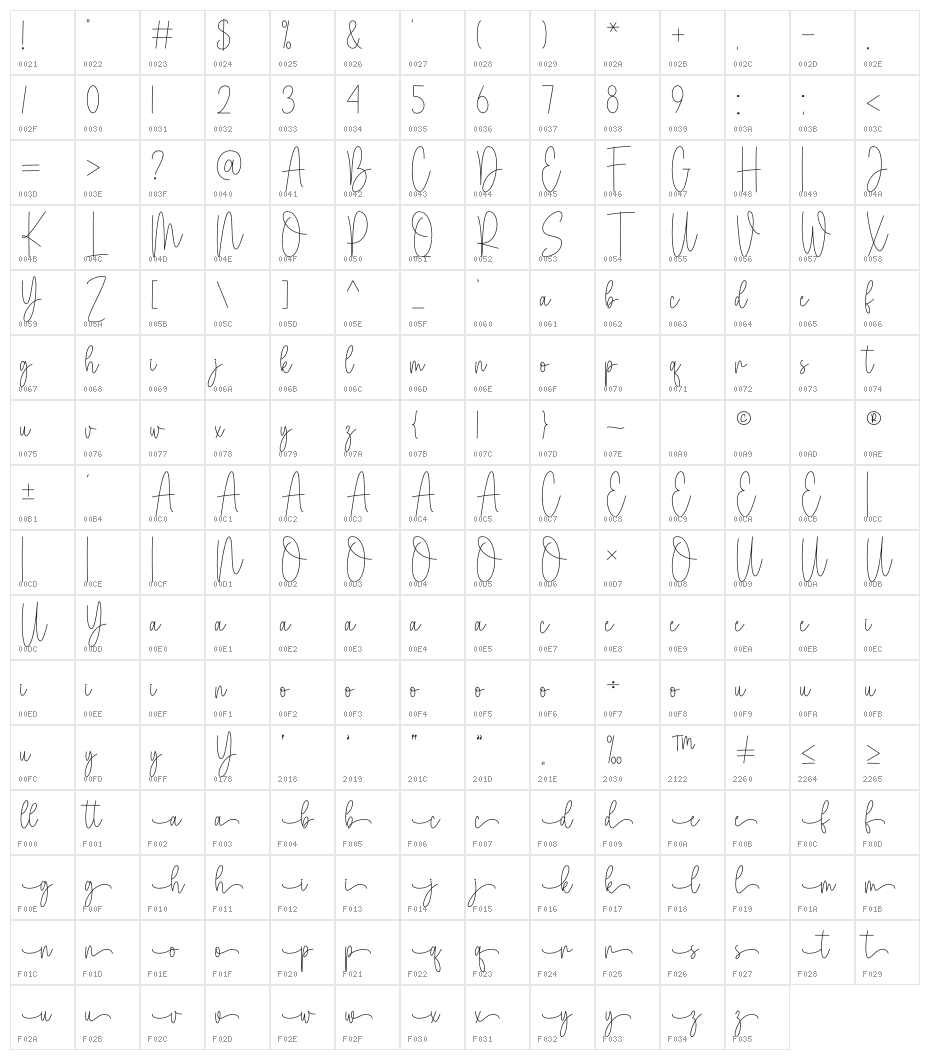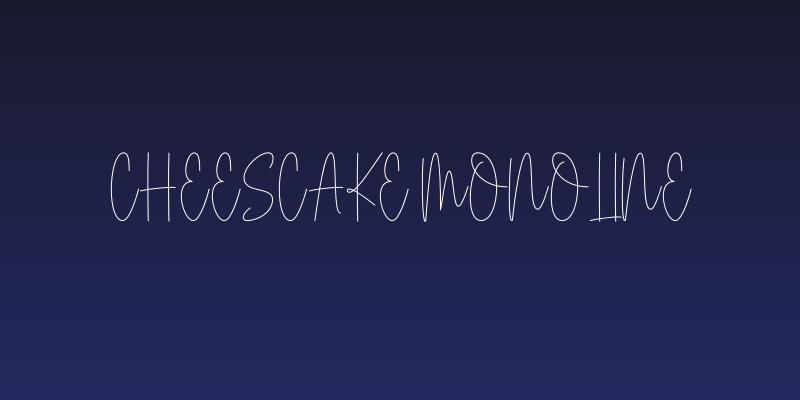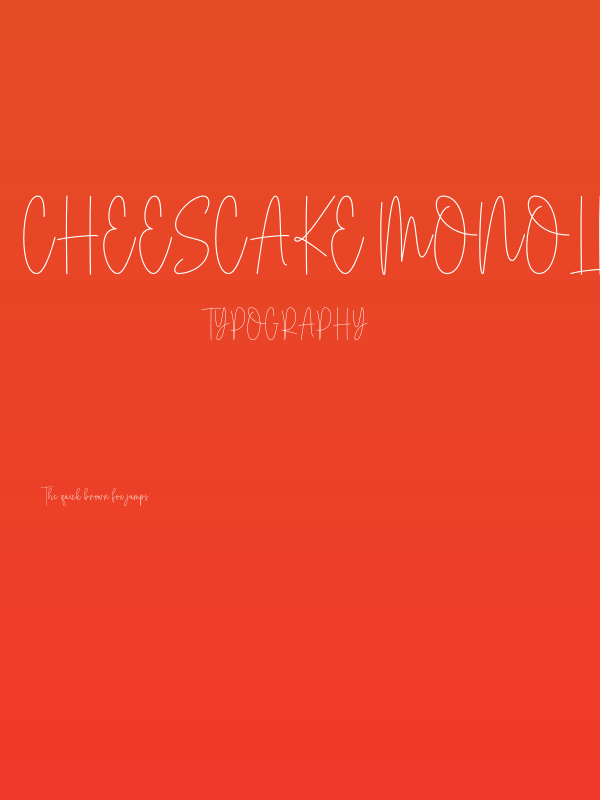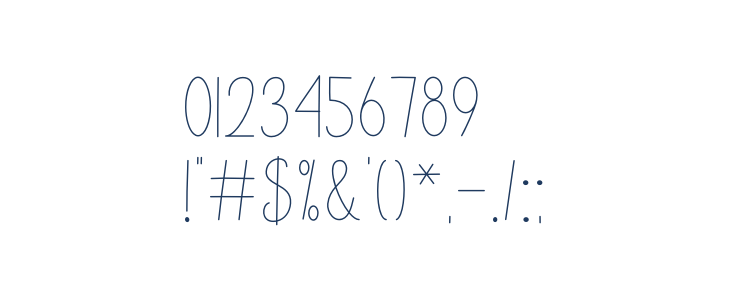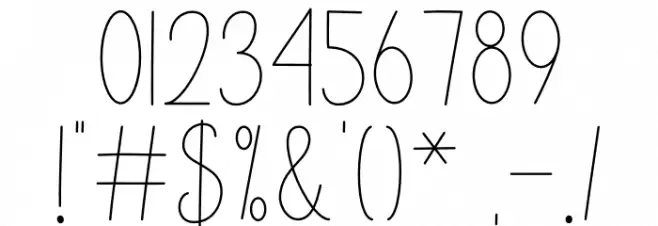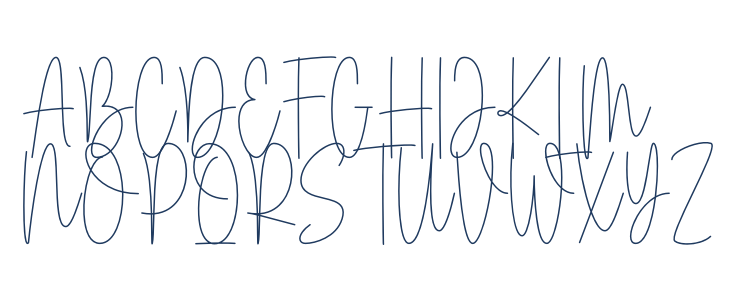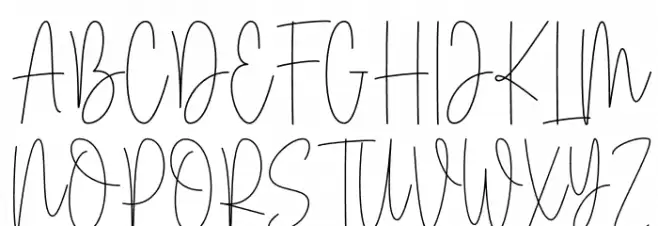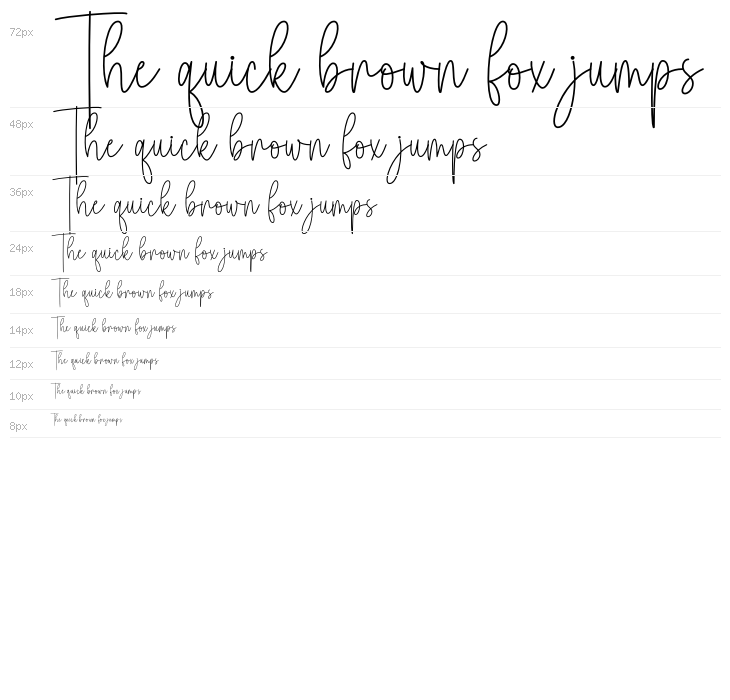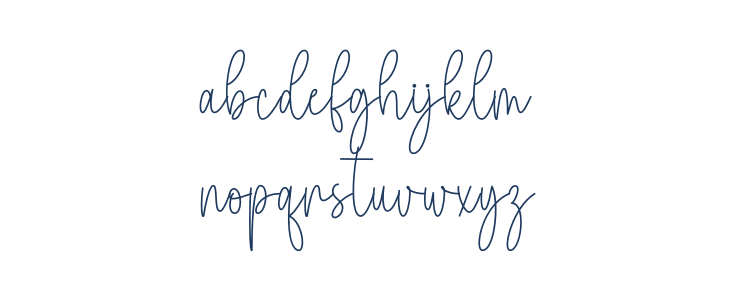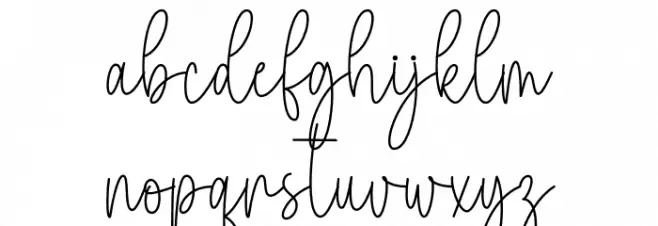
Cheescake Monoline Font
Cheescake Monoline Description
A monoline handwritten script with tall, narrow letterforms and consistent thin strokes, featuring playful curves and a casual, informal appearance. The characters are loosely spaced, with pronounced ascenders and descenders, and a natural, flowing style.
| Overall Style | Decorative, Casual, Modern |
| Use Case | Logos, Headlines, Invitations, Social media graphics |
| Proposed Projects | Greeting cards, invitations, social media graphics, branding for creative businesses, quotes, and personal stationery. |